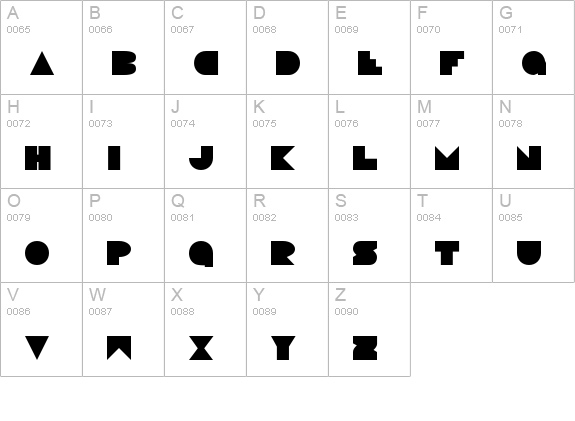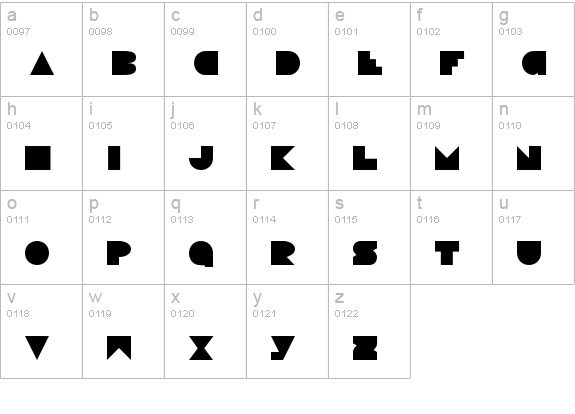
Disco Deck is a fun and vibrant font that perfectly captures the essence of disco fever from the 1970s. Its bold and groovy style is sure to make any design stand out with its retro charm. The unique letterforms of Disco Deck exude a sense of energy and movement, making it an ideal choice for party invitations, posters, and music-related designs. Best of all, Disco Deck is available for free download at FontsMarket.com. This means you can easily add this fantastic font to your collection without any cost. So why wait? Bring the disco vibes to your projects with Disco Deck font today!